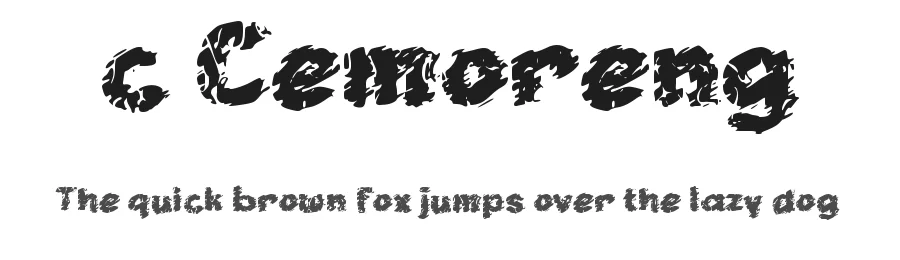
About Doctor Hofmann Font
Doctor Hofmann
Doctor Hofmann Font is a decorative font that shines as a display or heading face. Pair it with a clean sans-serif or serif font for body text β the contrast creates a clear hierarchy while the two styles stay balanced and easy to read.